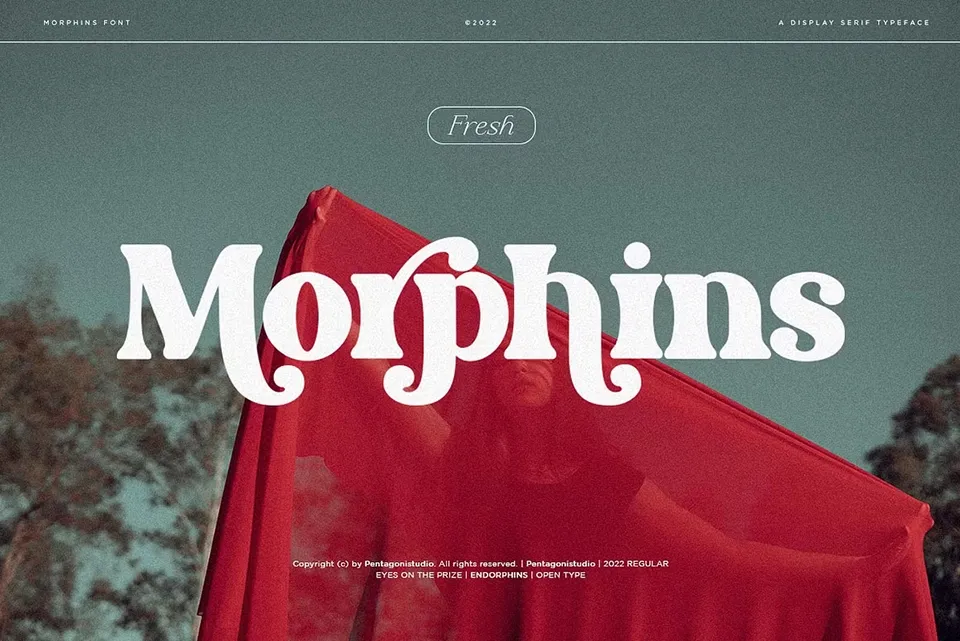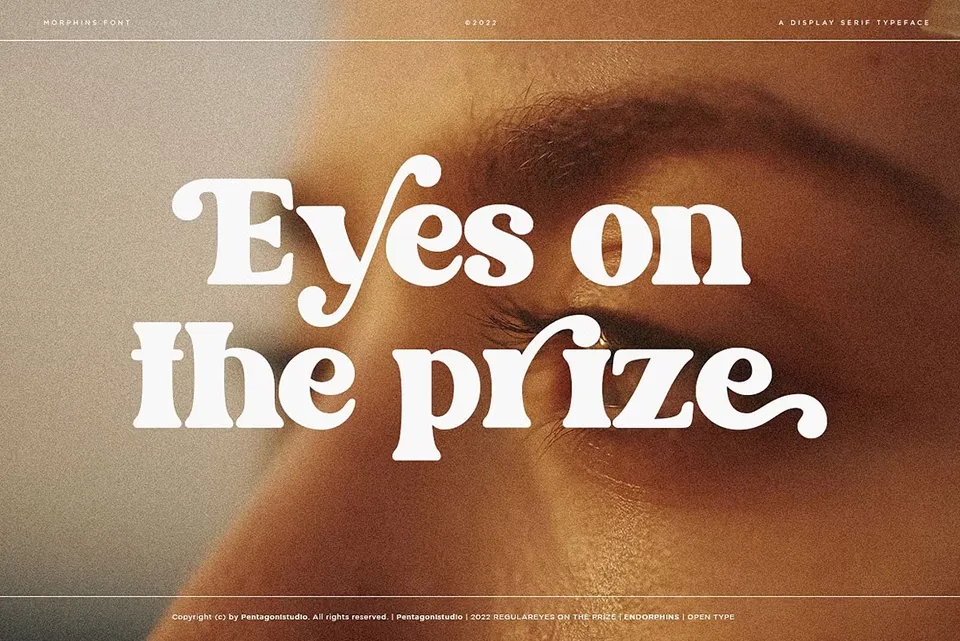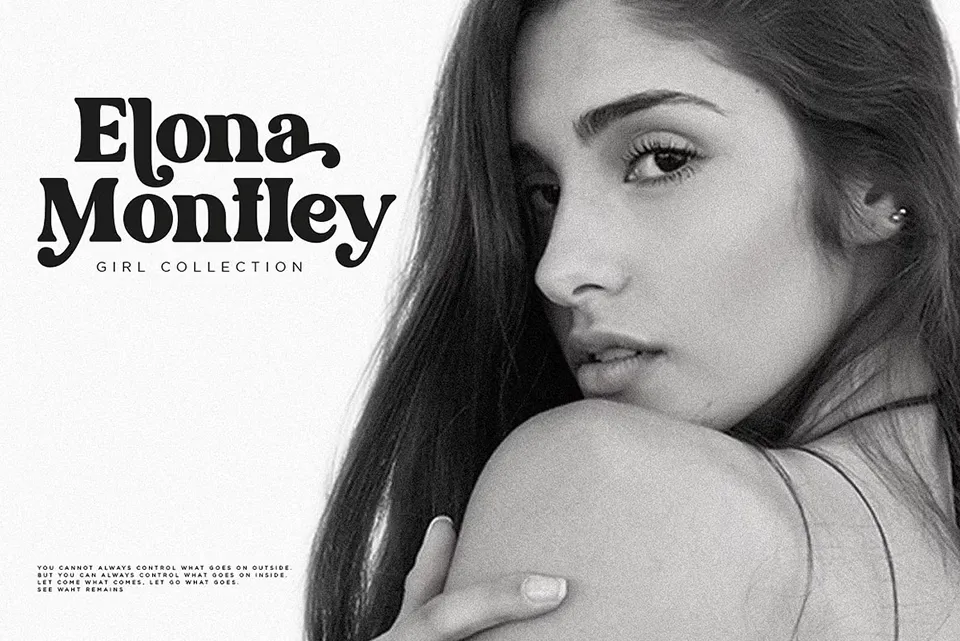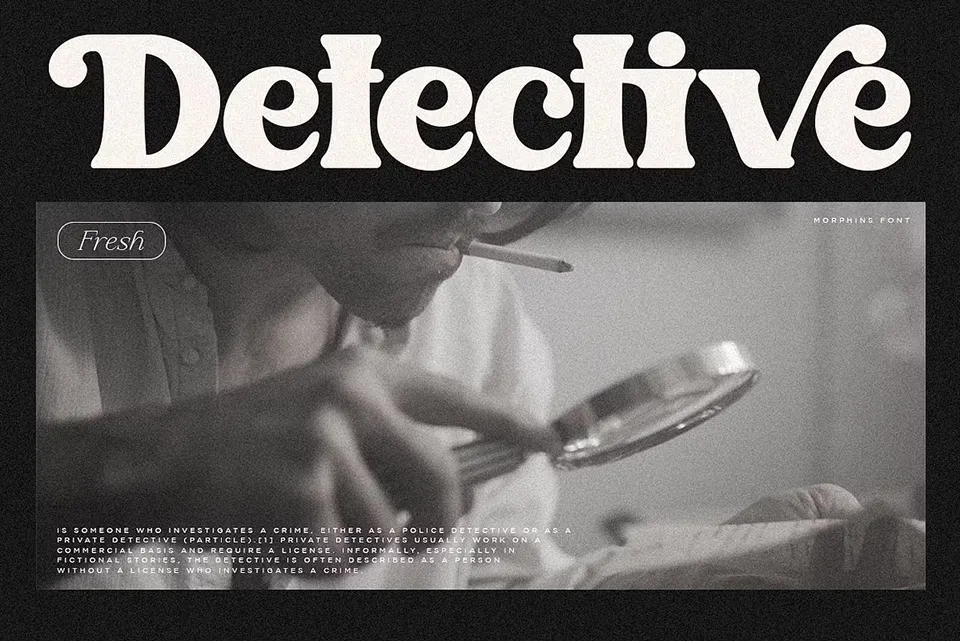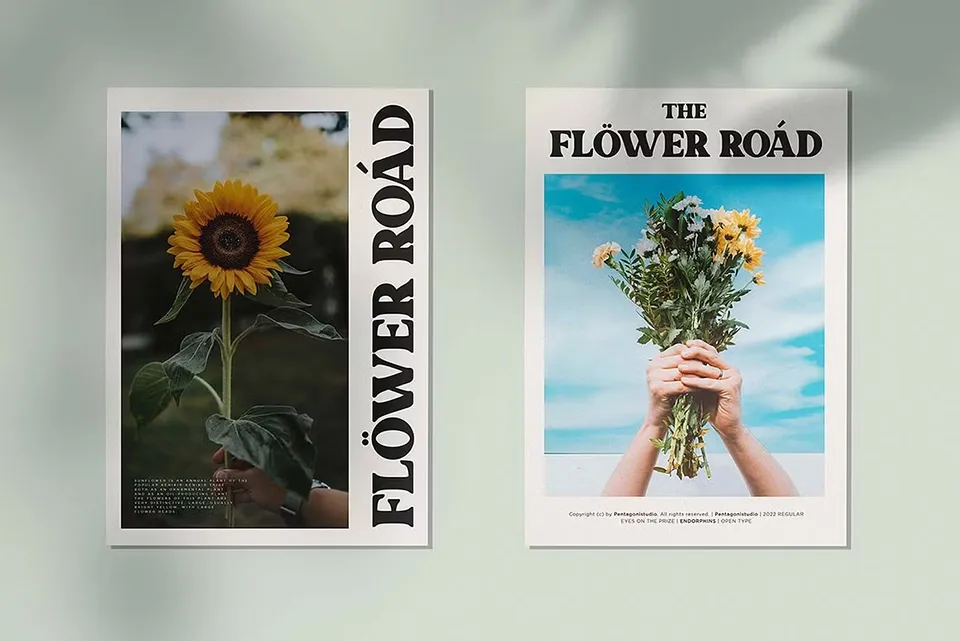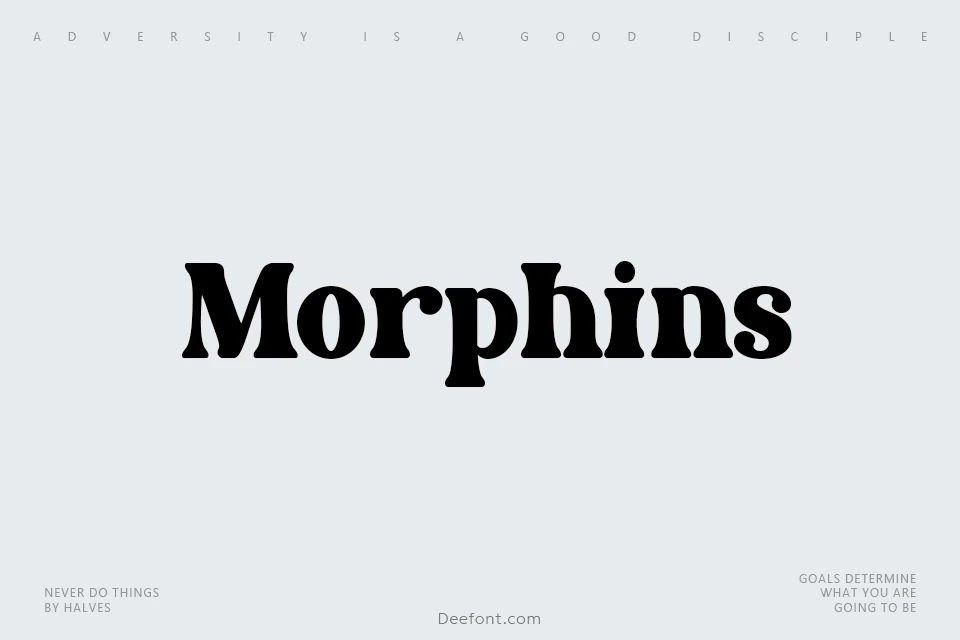
Morphins Font
Morphins Font is a fancy display serif font inspired by retro and vintage aesthetics. Characterized by its bold curves and unique swash details, Morphins is designed to make your designs stand out. Perfect for posters, magazines, branding, logos, labels, merchandise, presentations, advertising, cards, and quotes, this versatile typeface brings a touch of elegance and personality to any creative project. With both uppercase and lowercase letters, extensive multilingual support, and a range of stylistic alternates, Morphins is a stylish choice for designers seeking a fresh yet classic look.